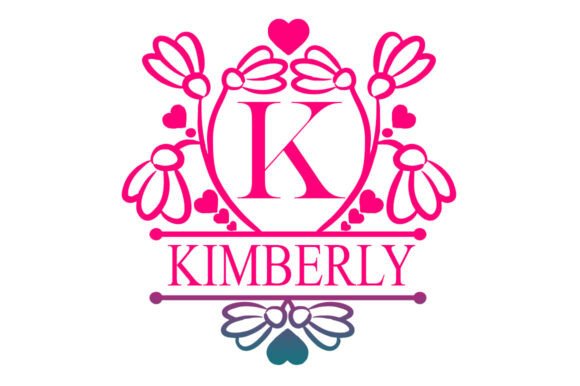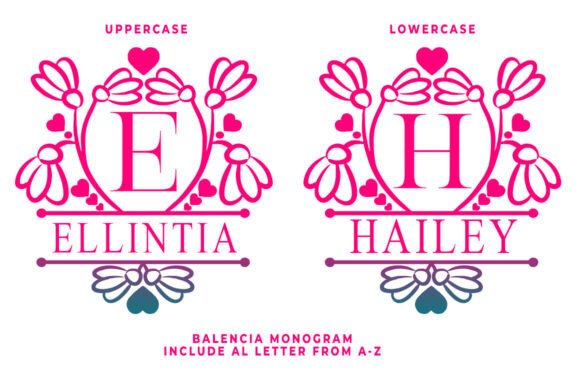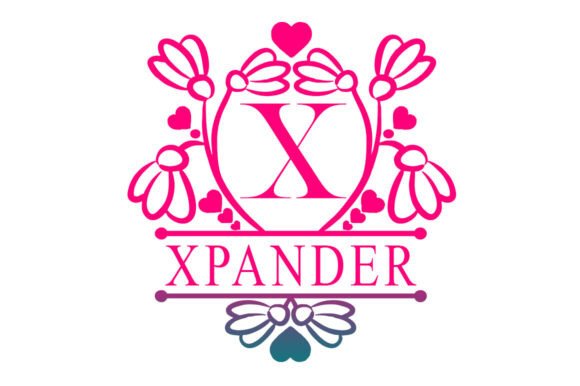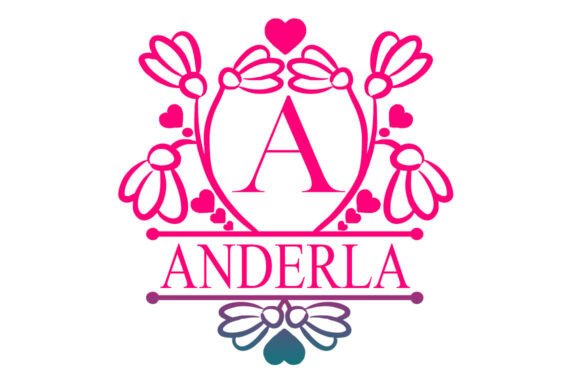
Introducing Balencia Monogram Font: Elevate Your Designs with Sophistication
In the world of typography, few fonts manage to convey the perfect blend of elegance and charm. Balencia Monogram Font is one such exceptional typeface that brings a touch of sophistication to any design. With its tasteful decorative elements and authentic vibe, this font is poised to become a favorite among designers and crafters looking to add a dash of luxury to their creations.
The Essence of Balencia Monogram
Balencia Monogram Font is more than just a typeface; it’s an experience. Its design masterfully weaves together decorative elements that exude a sense of refinement and poise. Whether you’re working on wedding invitations, stationery art, or social media posts, this font adds an elegant touch that instantly elevates your design. The authentic vibe of Balencia Monogram is undeniable, making it a perfect choice for those who want to infuse their creations with a sense of charm and delight.
Perfect for Wedding Invitations and Stationery Art
Wedding invitations and stationery art are all about making a statement. With Balencia Monogram Font, you can create exquisite designs that leave a lasting impression. The font’s elegant aesthetics and sophisticated feel make it an ideal choice for:
• Wedding invitations: Add a touch of luxury to your wedding invitations and make them truly unforgettable.
• Stationery art: Elevate your stationery art with Balencia Monogram’s elegant touch and make it stand out.
• Greeting cards: Create delightful greeting cards that evoke a smile with Balencia Monogram’s charming design.
Enhance Your Social Media Presence
In today’s digital age, social media is a crucial platform for designers and businesses to showcase their work. With Balencia Monogram Font, you can create eye-catching social media posts that grab attention and leave a lasting impression. The font’s unique design and elegant aesthetics make it perfect for:
• Social media graphics: Add a touch of sophistication to your social media graphics and make them stand out.
• Blog posts: Elevate your blog posts with Balencia Monogram’s elegant touch and make them more engaging.
• Email newsletters: Create visually appealing email newsletters that showcase your brand’s personality with Balencia Monogram Font.
Why Choose Balencia Monogram Font?
With so many fonts available, why choose Balencia Monogram? Here are a few compelling reasons:
• Elegant aesthetics: Balencia Monogram’s design is undeniably elegant, making it perfect for designs that require a touch of sophistication.
• Authentic vibe: The font’s authentic vibe adds a sense of charm and delight to any design.
• Versatility: Balencia Monogram Font is versatile and can be used for a wide range of design projects, from wedding invitations to social media posts.
• Easy to use: The font is easy to use and can be integrated seamlessly into your design workflow.
Get Creative with Balencia Monogram
With Balencia Monogram Font, the possibilities are endless. Whether you’re a designer, crafter, or business owner, this font is sure to inspire you to create unique masterpieces. So why wait? Dive into the captivating allure of Balencia Monogram and let it transform your creativity into:
• Exquisite wedding invitations
• Elegant stationery art
• Eye-catching social media posts
• Delightful greeting cards
In conclusion, Balencia Monogram Font is a game-changer for designers and crafters looking to add a touch of sophistication to their creations. Its elegant aesthetics, authentic vibe, and versatility make it a perfect choice for a wide range of design projects. So go ahead, get creative with Balencia Monogram, and elevate your designs to new heights!